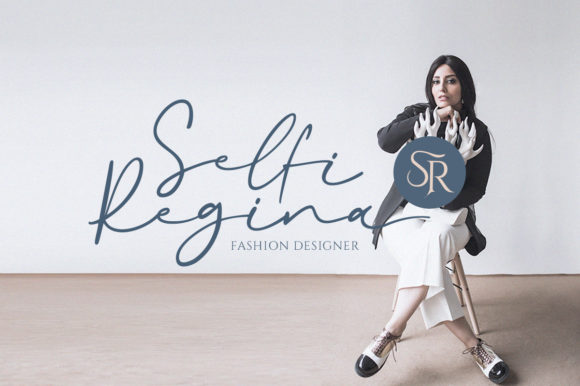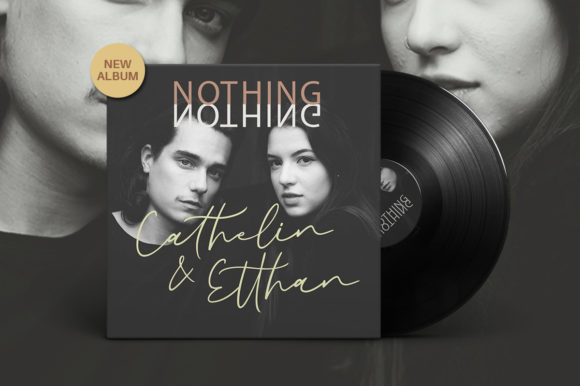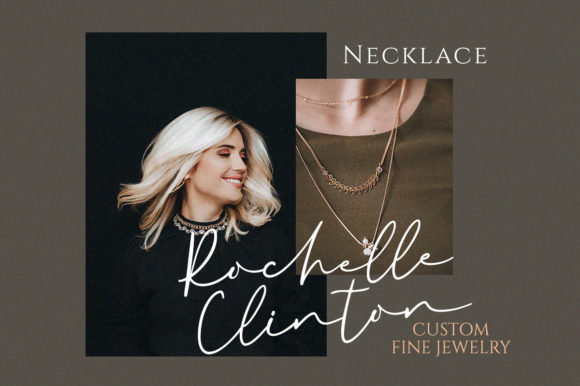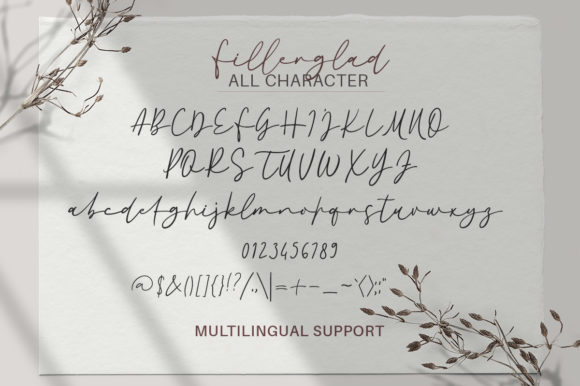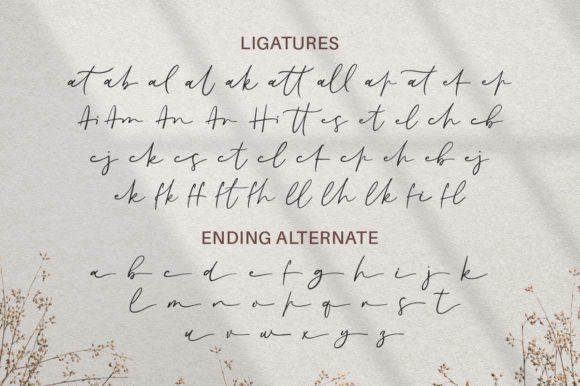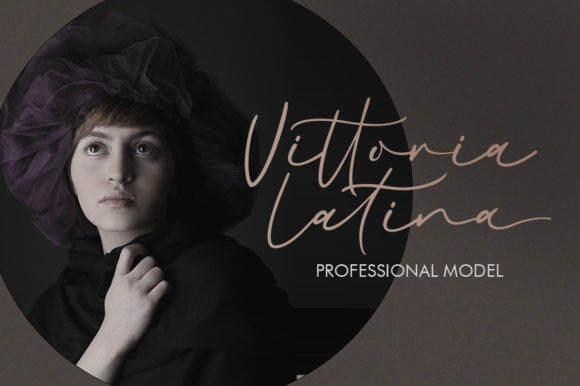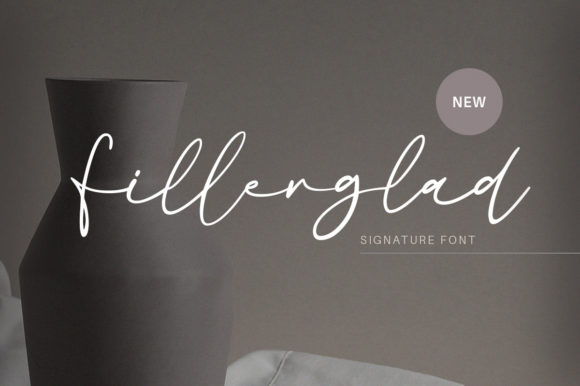
Introducing Fillerglad Font: The Elegant and Delicate Handwritten Font for Your Creative Projects
Are you a designer, crafty person, or someone who loves creating beautiful visual content? Look no further than Fillerglad Font, an elegant and delicate handwritten font that’s perfect for a wide range of creative projects. With its incredibly versatile style, Fillerglad Font is sure to capture your heart and inspire your imagination.
What Makes Fillerglad Font So Special?
Fillerglad Font is a unique and beautiful handwritten font that’s designed to add a touch of elegance and sophistication to your designs. Its delicate and refined style makes it perfect for creating stunning wedding invitations, beautiful stationery art, eye-catching social media posts, and much more. Whether you’re a professional designer or a crafty person, Fillerglad Font is sure to become your go-to font for all your creative projects.
Uses for Fillerglad Font
One of the best things about Fillerglad Font is its versatility. This beautiful font can be used for a wide range of creative projects, including:
- Wedding Invitations: Create stunning wedding invitations that will set the tone for your special day. Fillerglad Font’s elegant and delicate style makes it perfect for formal and informal wedding invitations alike.
- Stationery Art: Add a touch of elegance to your stationery with Fillerglad Font. Create beautiful notecards, greeting cards, and journal pages that will make your friends and family swoon.
- Social Media Posts: Make your social media posts stand out with Fillerglad Font. Whether you’re creating graphics for Instagram, Facebook, or Twitter, this beautiful font is sure to grab attention.
- Branding and Packaging: Use Fillerglad Font to create beautiful branding and packaging for your business. This elegant font is perfect for creating labels, logos, and other marketing materials.
Why Choose Fillerglad Font?
With so many fonts to choose from, why should you choose Fillerglad Font? Here are just a few reasons why this beautiful font stands out from the rest:
- Unique and Elegant Style: Fillerglad Font has a unique and elegant style that’s sure to set your designs apart from the rest.
- Versatile: This beautiful font can be used for a wide range of creative projects, from wedding invitations to social media posts.
- Easy to Read: Fillerglad Font is easy to read, even in small sizes, making it perfect for creating designs that need to be clear and concise.
- High-Quality: Fillerglad Font is a high-quality font that’s designed to look beautiful on any device or platform.
Tips for Using Fillerglad Font
Here are a few tips for using Fillerglad Font in your creative projects:
- Pair it with Other Fonts: Fillerglad Font looks beautiful when paired with other fonts. Try pairing it with a bold font for a striking contrast.
- Experiment with Colors: Fillerglad Font looks beautiful in a variety of colors. Experiment with different colors to find the perfect one for your design.
- Use it for Headings and Titles: Fillerglad Font is perfect for creating beautiful headings and titles. Use it to add a touch of elegance to your designs.
Fillerglad Font is a beautiful and elegant handwritten font that’s perfect for designers, crafty people, and anyone who loves creating visual content. With its incredibly versatile style, Fillerglad Font can be used for a wide range of creative projects, from wedding invitations to social media posts. Whether you’re looking to add a touch of elegance to your designs or create something truly unique, Fillerglad Font is the perfect choice.